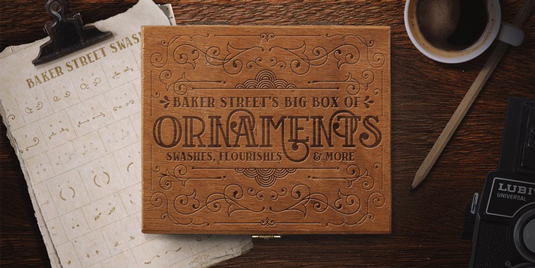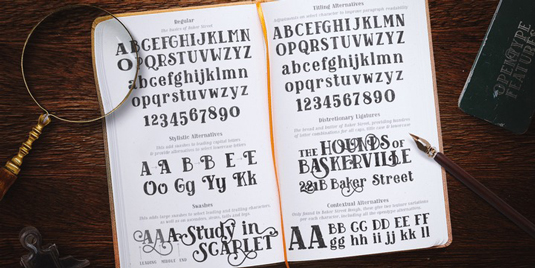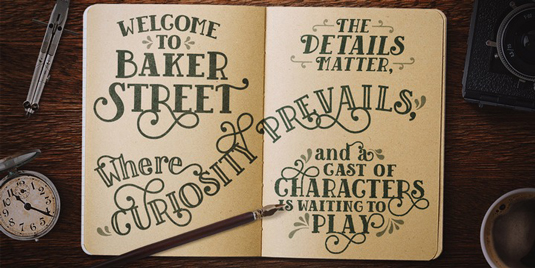
Font of the day: Baker Street
Each day of the week we showcase one of our favourite fonts – today it's Baker Street by Kimmy Kirkwood.
Baker Street by Kimmy Kirkwood
Designer Kimmy Kirkwood developed his latest typeface, Baker Street, after being inspired on a recent trip to London. "I happened upon a bustling pub with beautiful typographic signage," he comments. "Early sketches created an array of specialized ligatures from which the font really took shape. The family is comprised of regular, italic, inline and a rustic textured style."